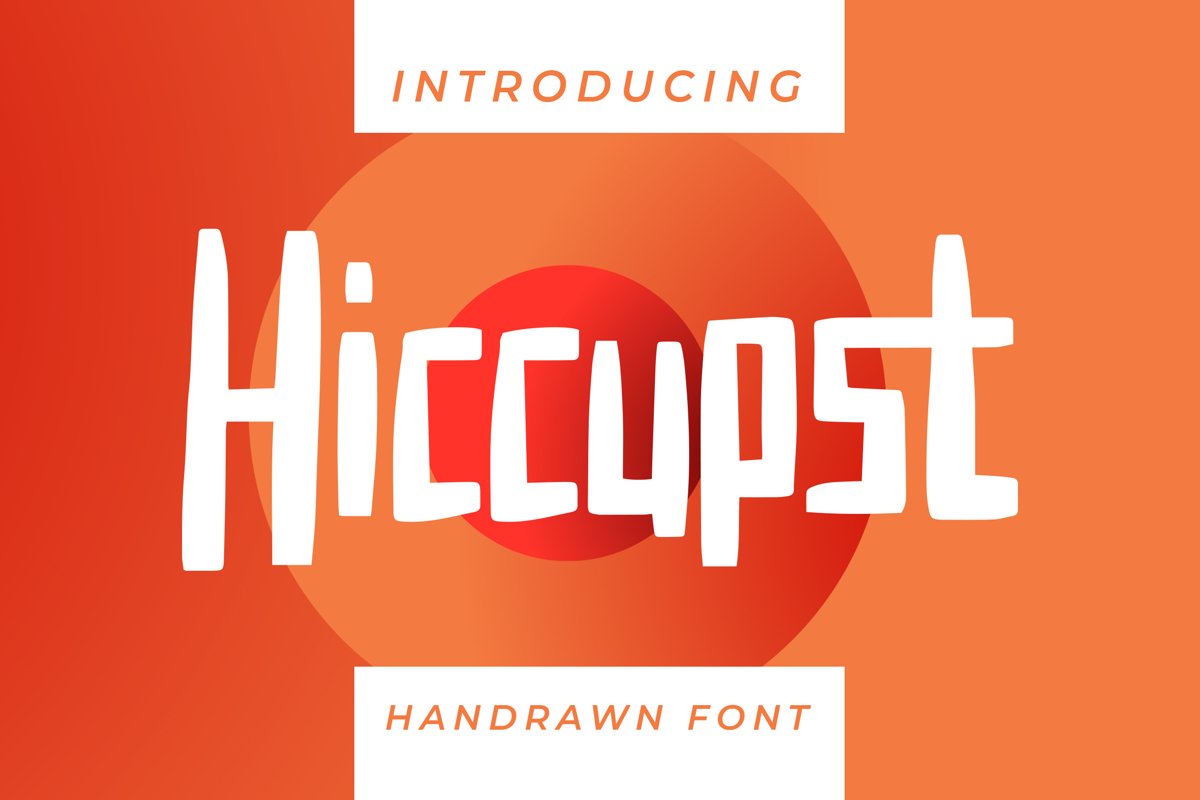
Hiccupst - Display Font that contain lowercase, uppercase, symbol, and also support multi language. There’s a lot ligatures in this font. This Font also comes with ligatures, alternates and many more. this font suitable for fashion, branding, catalog and other design what you want.